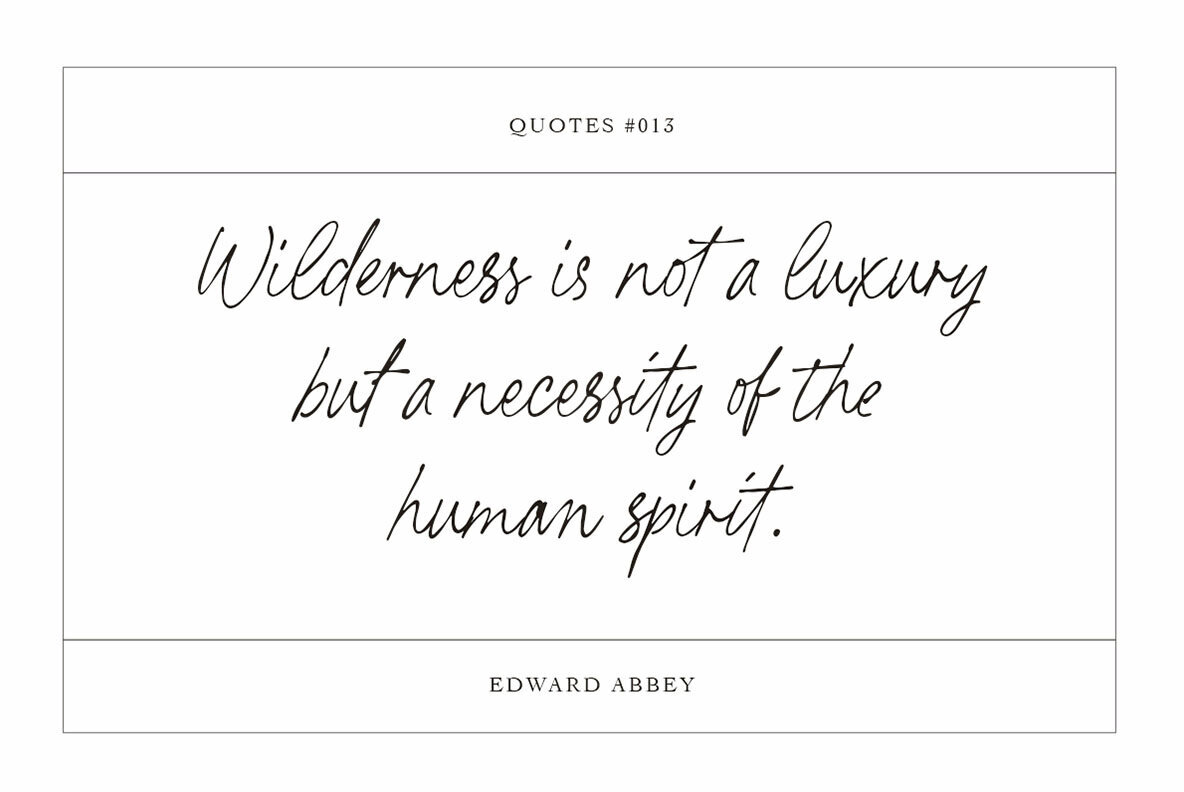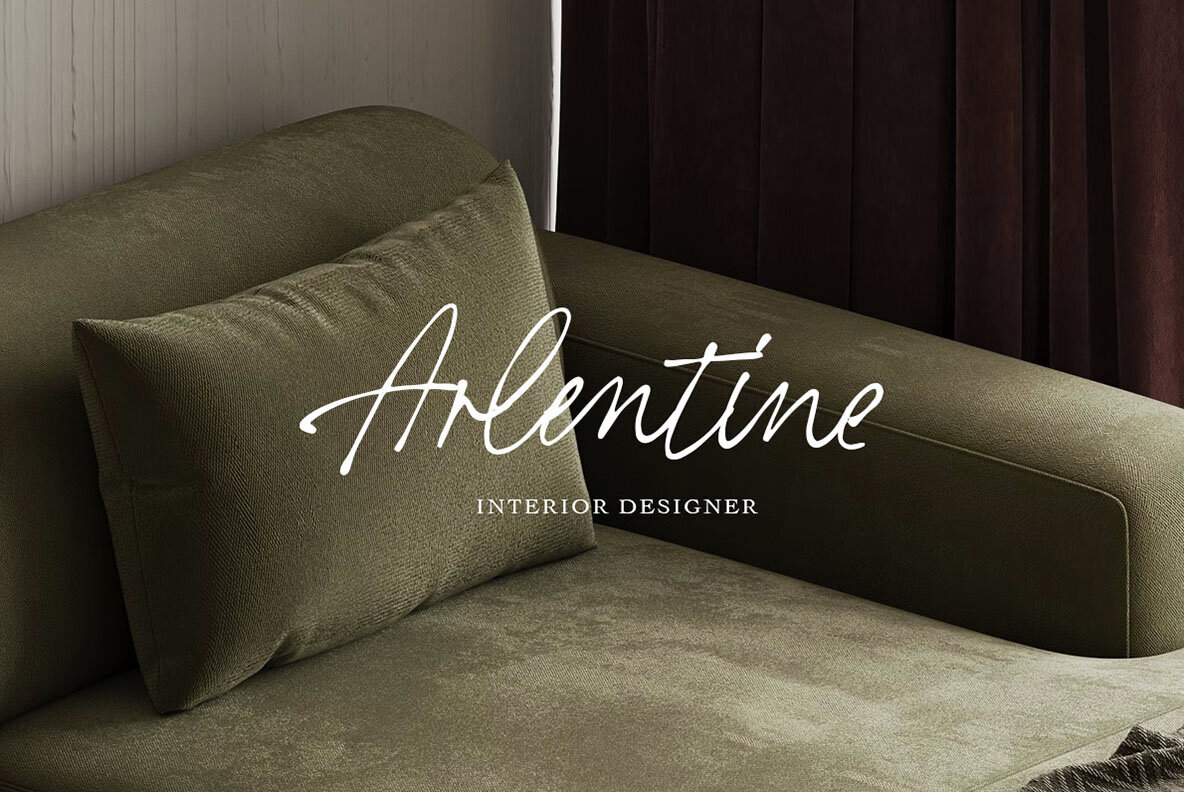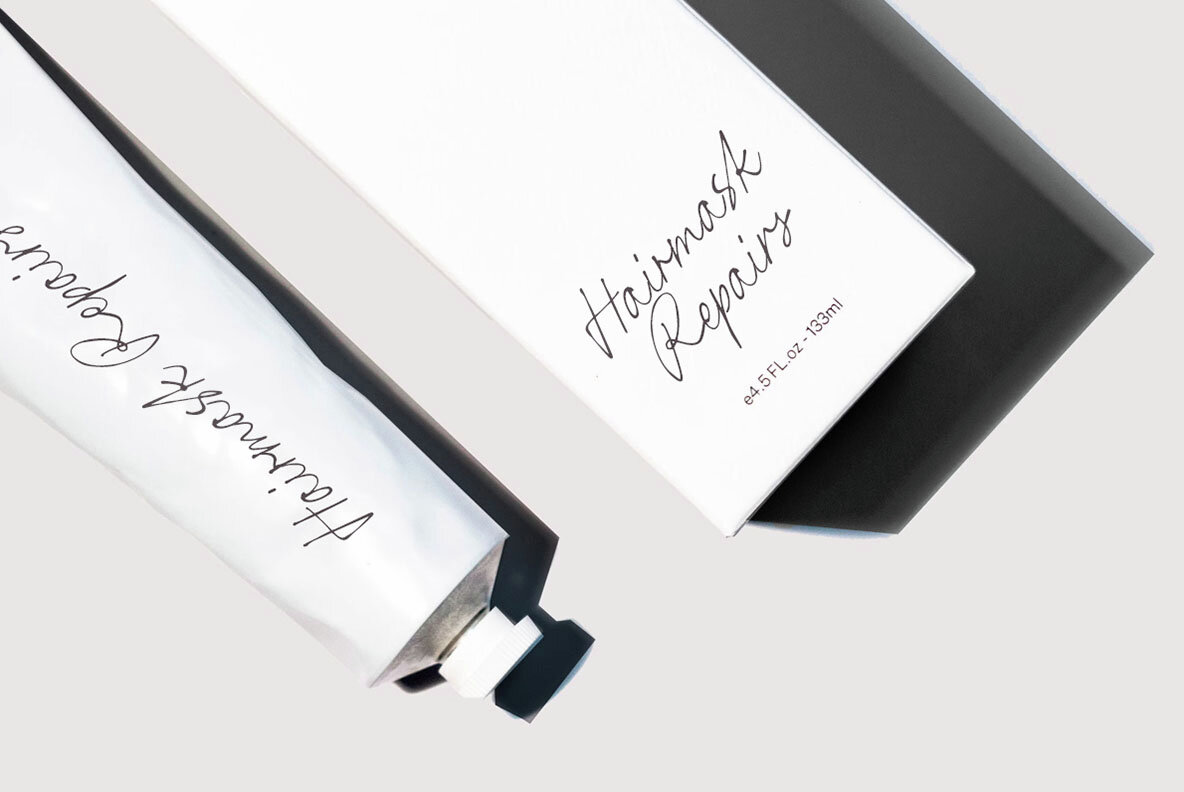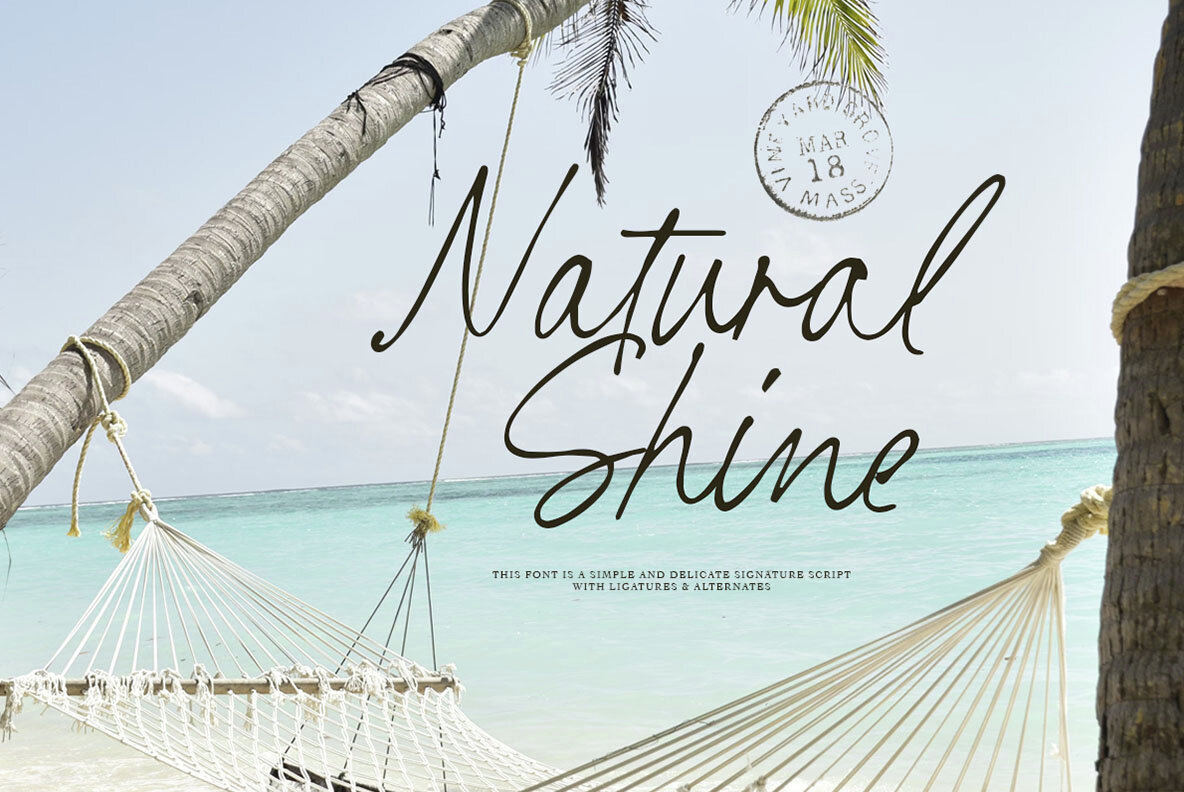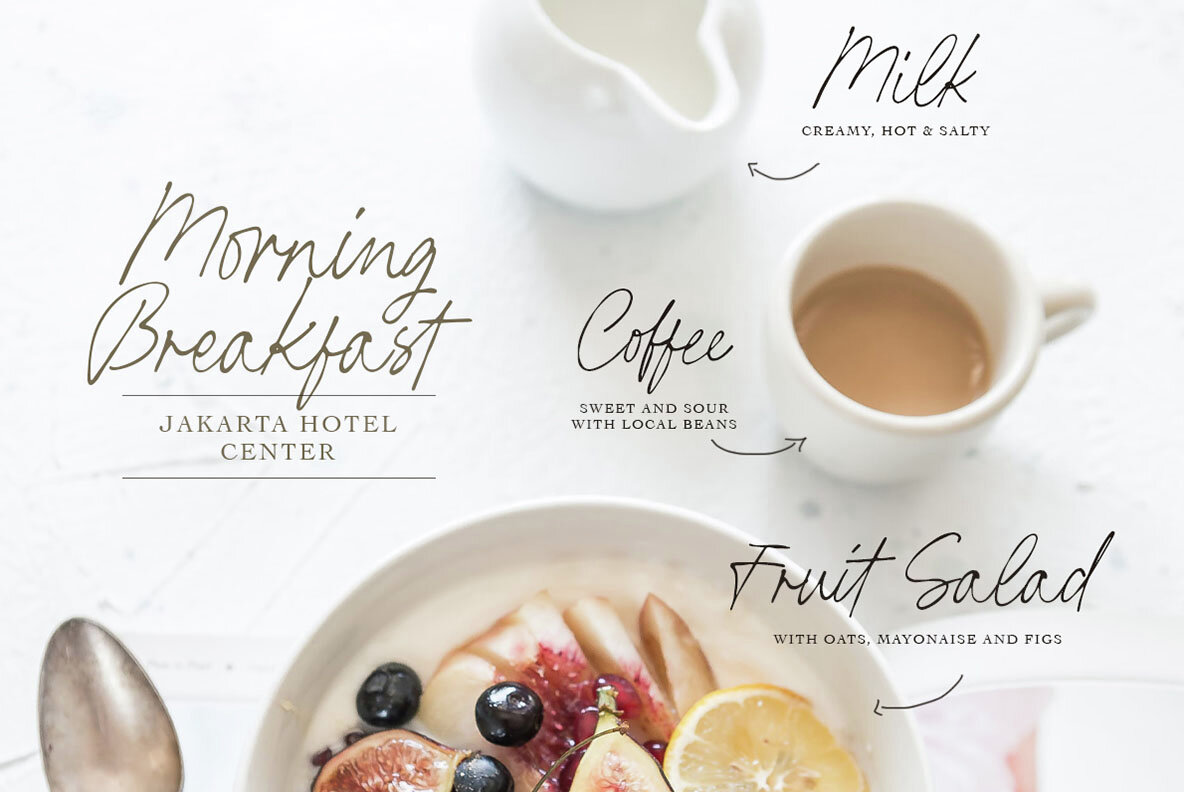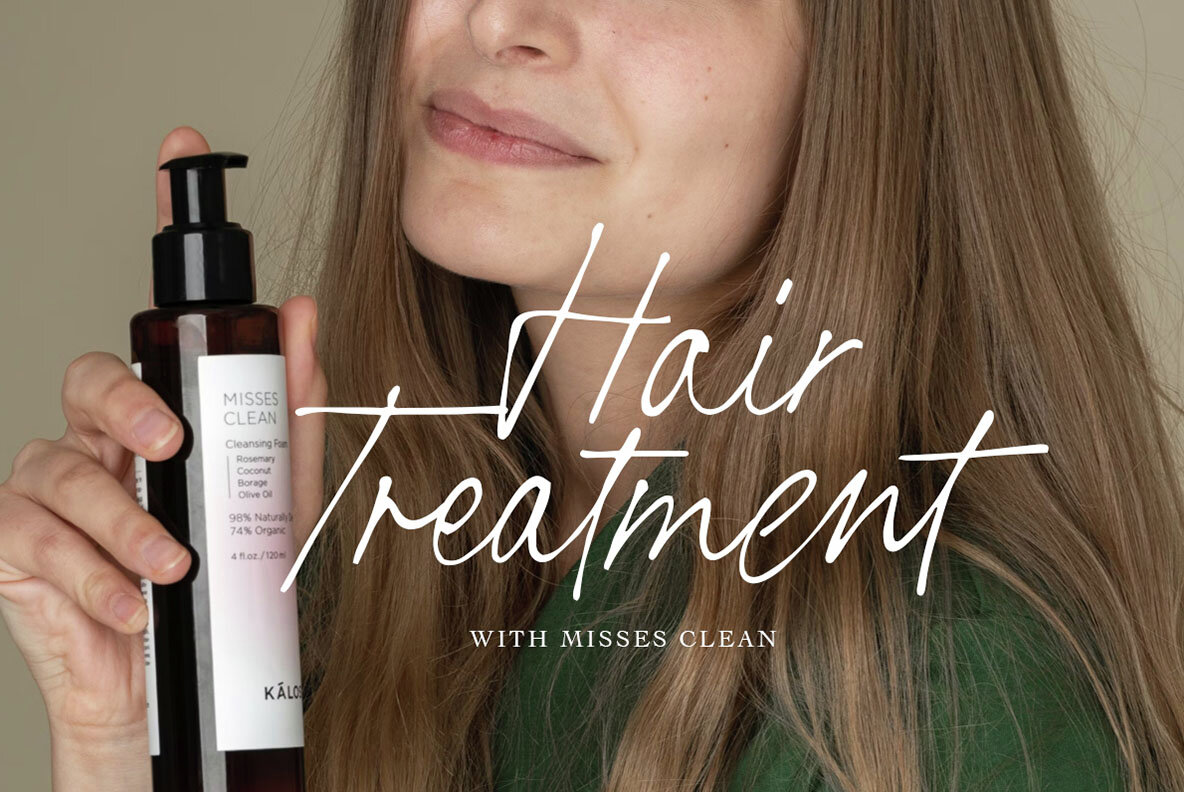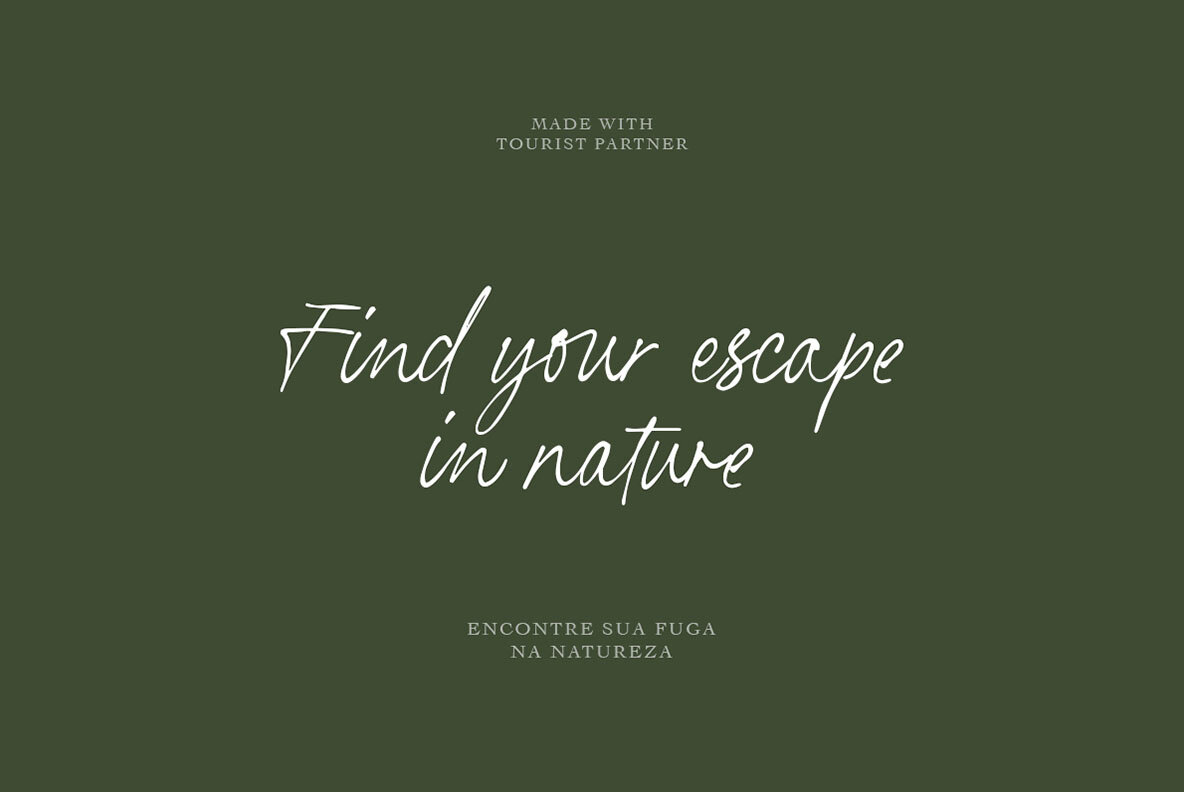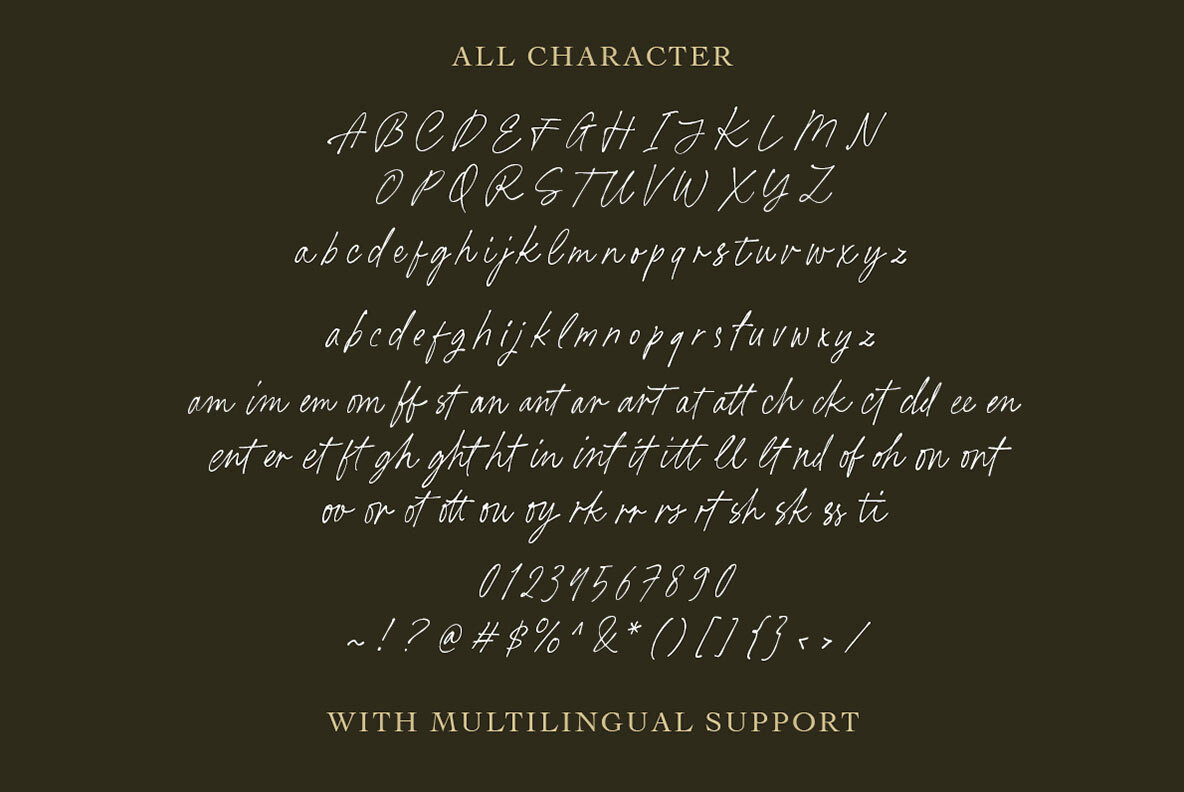
Tourist Partner Font
Tourist Partner
Tourist Partner is a refined and delicate signature script font designed for elegance and sophistication. With its natural handwritten flow, smooth curves, and stylish ligatures, this font captures an effortless, modern aesthetic. Perfect for branding, wedding invitations, logos, fashion, and editorial projects, it adds a touch of class to any design. The built-in alternates and ligatures allow for customization, making your typography look truly unique and personal. Features: We highly recommend using a program that supports OpenType features and Glyphs panels like many of Adobe apps and Corel Draw, so you can see and access all Glyph variations.